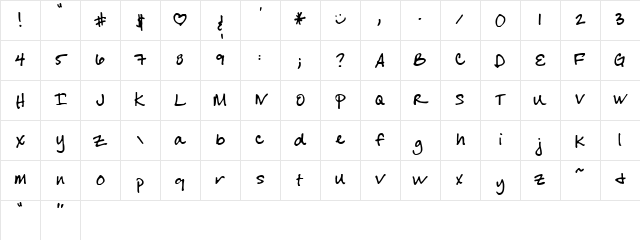
Cheryl Hand Free Font
Cheryl Hand
Style: Hand
Foundry: Font Garden
Designer: Ellinor Rapp
Design Context for Cheryl
Cheryl flows with the natural rhythm of handwritten lettering, making it ideal for designs that call for warmth and personal expression.
Font Pairing: Combine Cheryl with a simple geometric sans for maximum contrast - the tension between flowing curves and clean structure is a classic typographic pairing.
Pro Tip: Use Cheryl for short runs of text - names, titles, or taglines. Extended body copy in script faces tires the eye quickly.